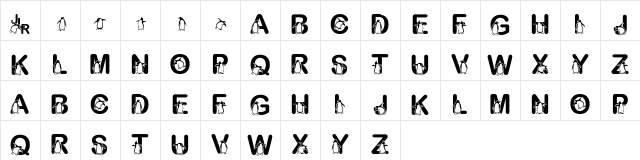
Fontasy Penguin
Design Context for Fontasy Typeface
Fontasy is a composed and adaptable typeface that performs quietly and consistently across a wide range of design contexts.